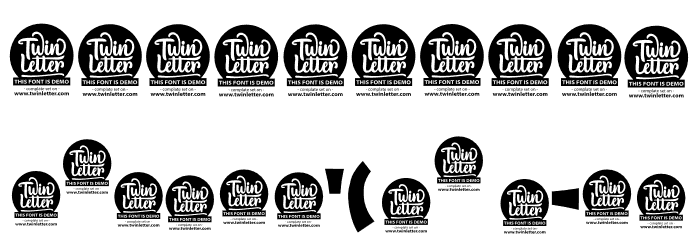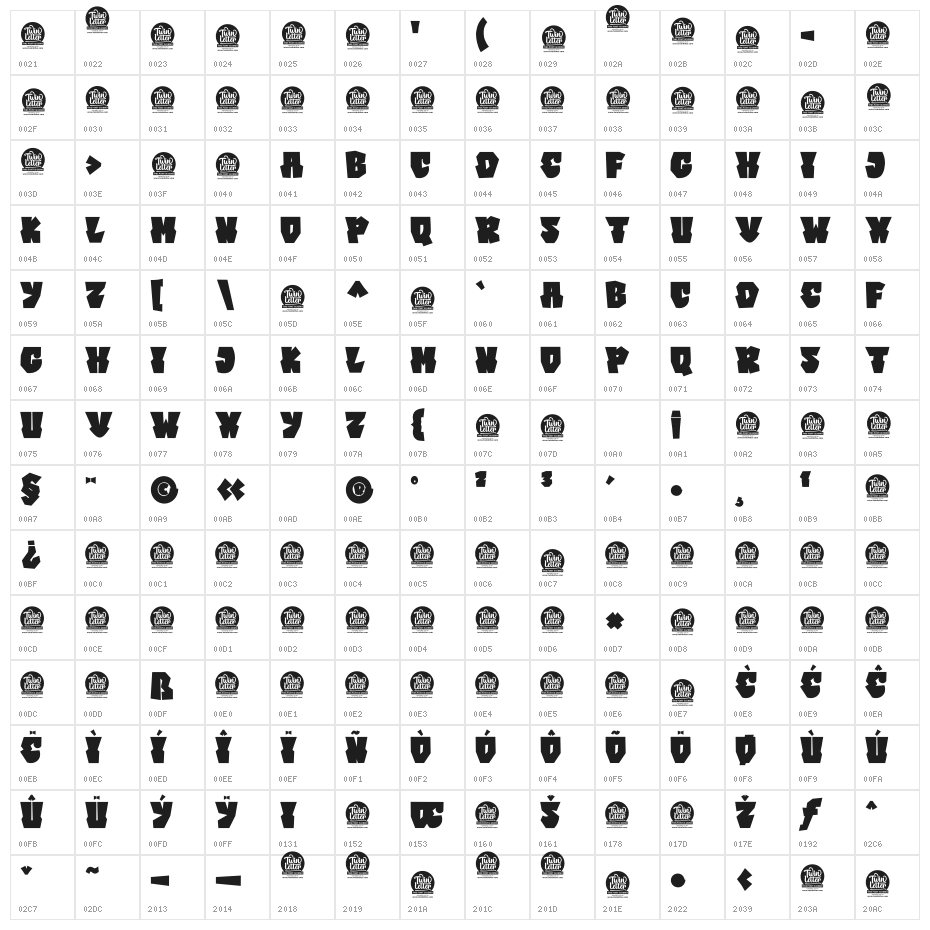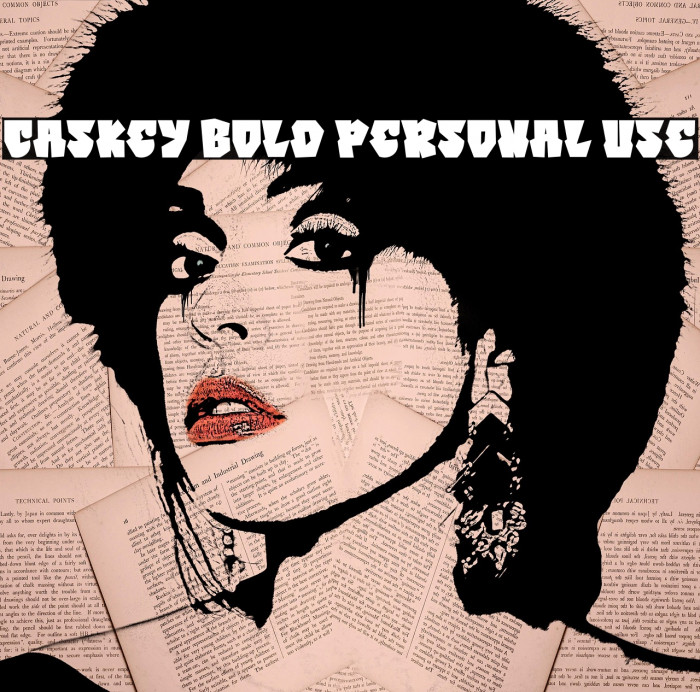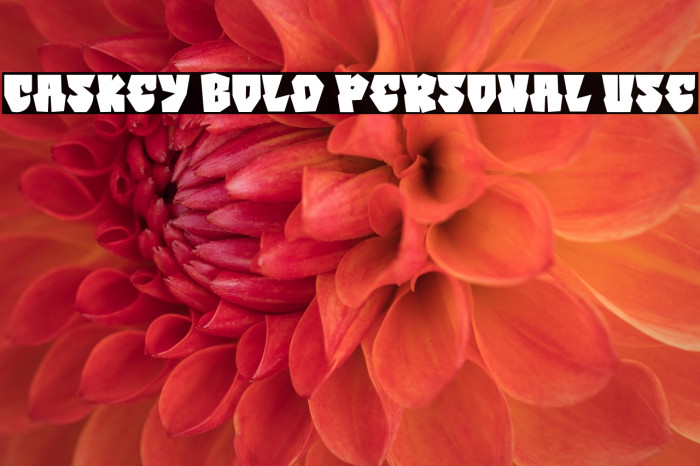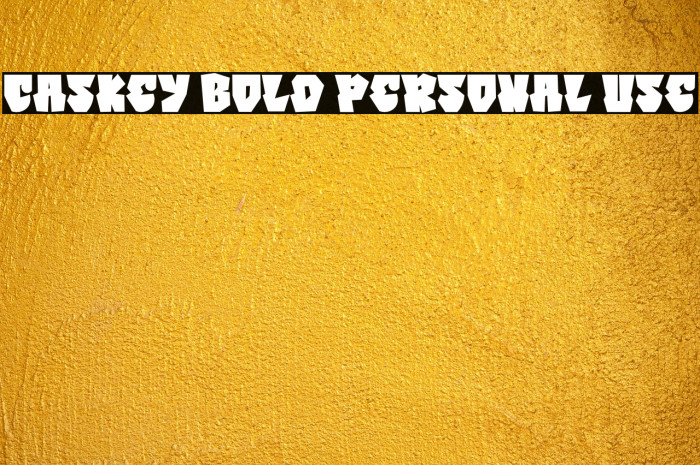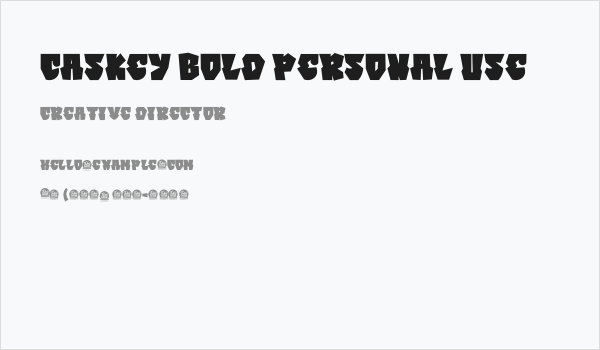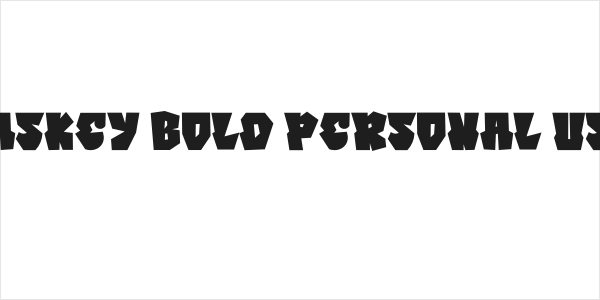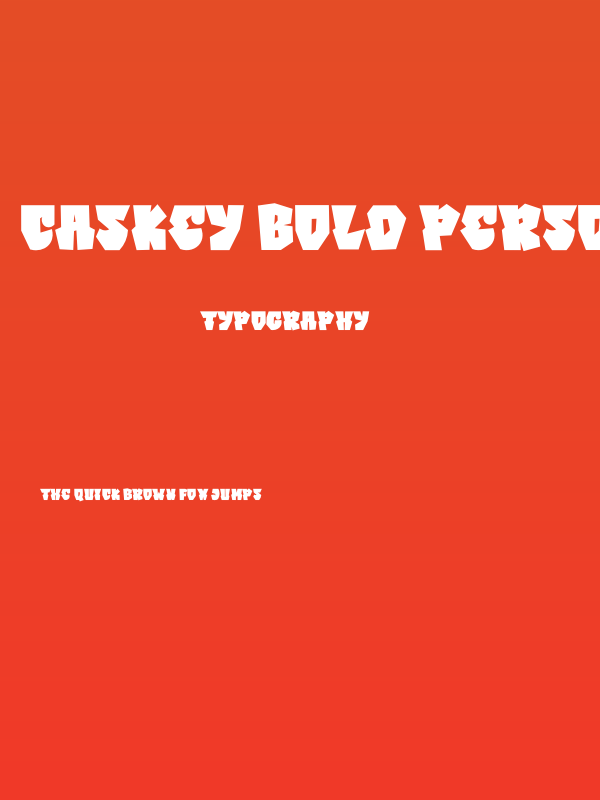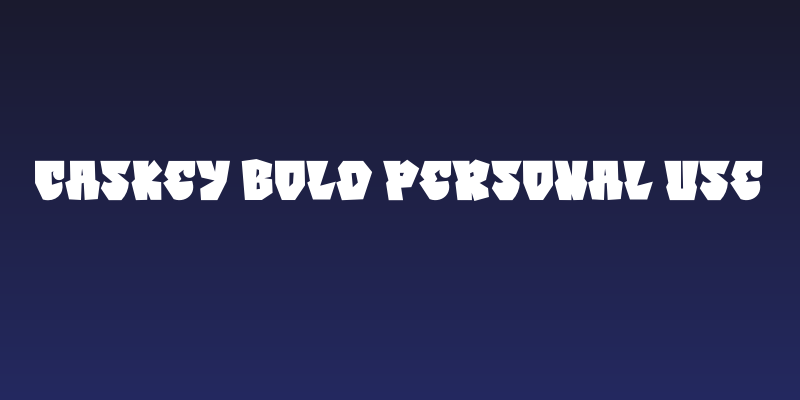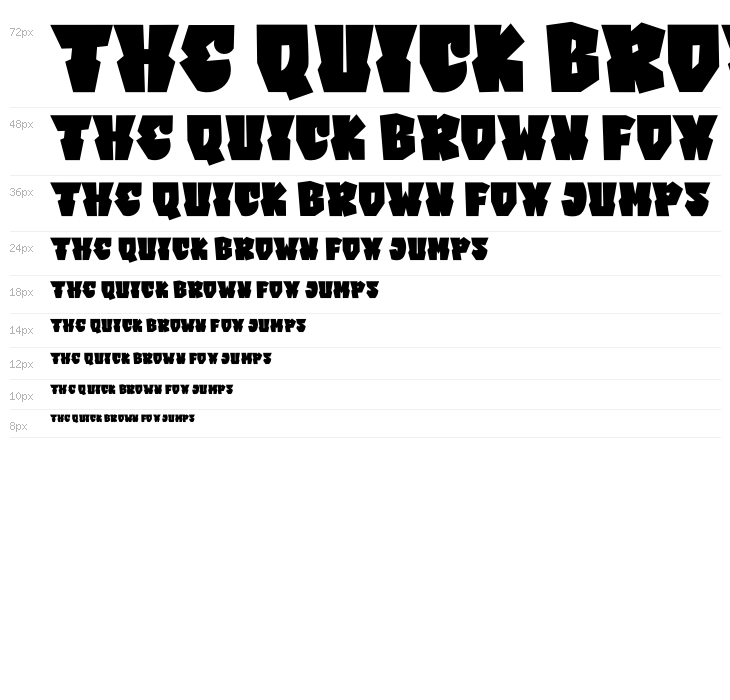
Caskey Bold Personal Use Font
Caskey Bold Personal Use Description
This bold and striking font features a unique, angular design that commands attention. Each character is crafted with sharp edges and a geometric style, giving it a modern and edgy appearance. The uppercase letters are particularly bold, with a strong presence that makes them ideal for headlines or titles. The lowercase letters maintain the same angular style, ensuring consistency throughout. The numbers and special characters are equally bold and distinctive, making them suitable for a variety of design needs. This font's dramatic style is perfect for projects that require a strong visual impact.
| Proposed Projects | Ideal for posters, logos, branding, and any project needing a bold, impactful typeface. |